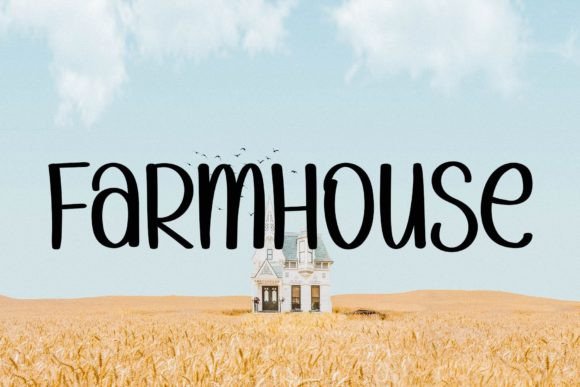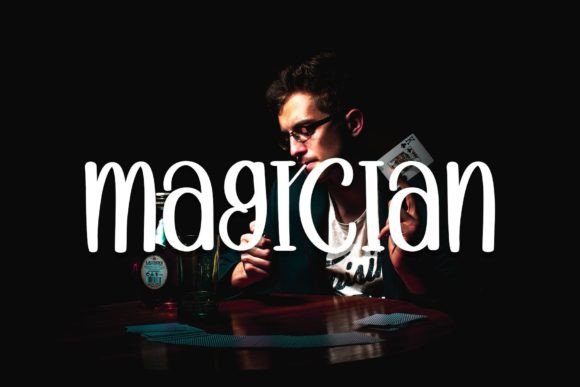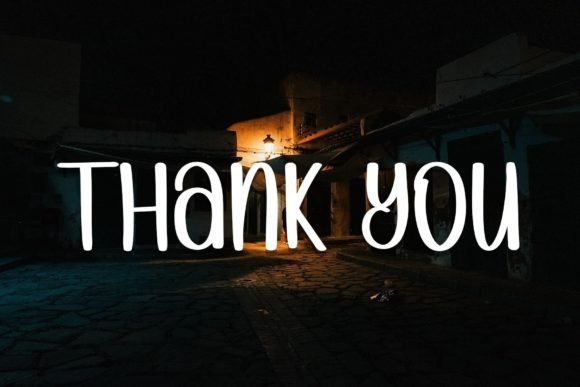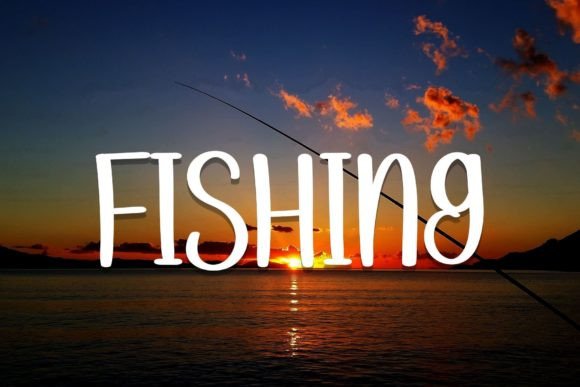
Black House Font
About Black House Font
“Black House” is a sweet and natural handwritten font that exudes a natural and unique style. With its versatile design, this font is a fitting choice for a wide array of design projects. The only limit is your imagination, as “Black House” stands ready to add a touch of sweetness and authenticity to your creations.
The sweet and natural qualities of “Black House” make it well-suited for a variety of design applications. Whether you’re working on social media graphics, branding materials, invitations, or any other creative project, this font’s natural and unique style can enhance the overall aesthetic.
The versatility of “Black House” lies in its ability to adapt to different design contexts. Its handwritten and natural style adds a personal touch, making it suitable for conveying warmth and authenticity in your designs.
Consider confidently incorporating “Black House” into your projects when you want to add a sweet and natural handwritten element. With this font, your imagination becomes the only limit, allowing you to create designs that reflect your creativity and individuality.
In essence, “Black House” is more than just a font; it’s a creative tool that invites you to explore the boundless possibilities of design. Embrace its sweet and natural handwritten style to infuse your projects with a touch of authenticity and charm.